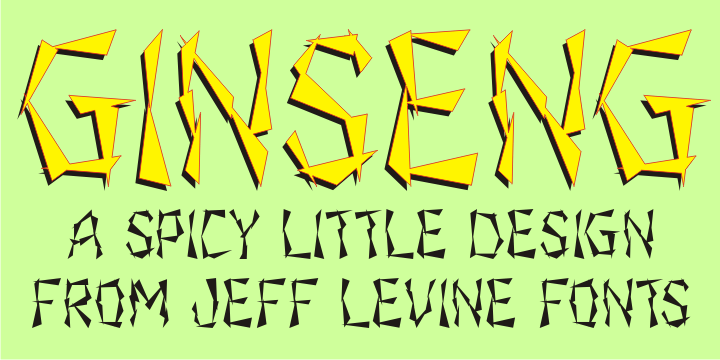
Ginseng
Ginseng JNL evokes the mysticism and grandeur of the Far East. The font was originally conceived as either electricity in motion or glass shards, but the design simply built itself into a typeface that pays homage to the hand lettering of the Orient.